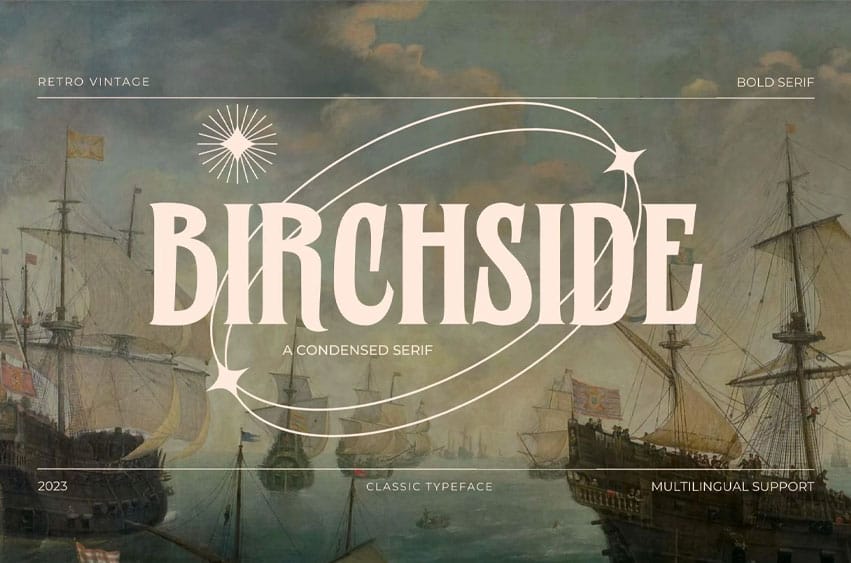
Birchside Font is a condensed serif typeface that evokes a sense of nostalgia. It is a completely new font designed with a condensed style.
- Uppercase and Lowercase
- Numeral & Punctuation
- Well Kerned